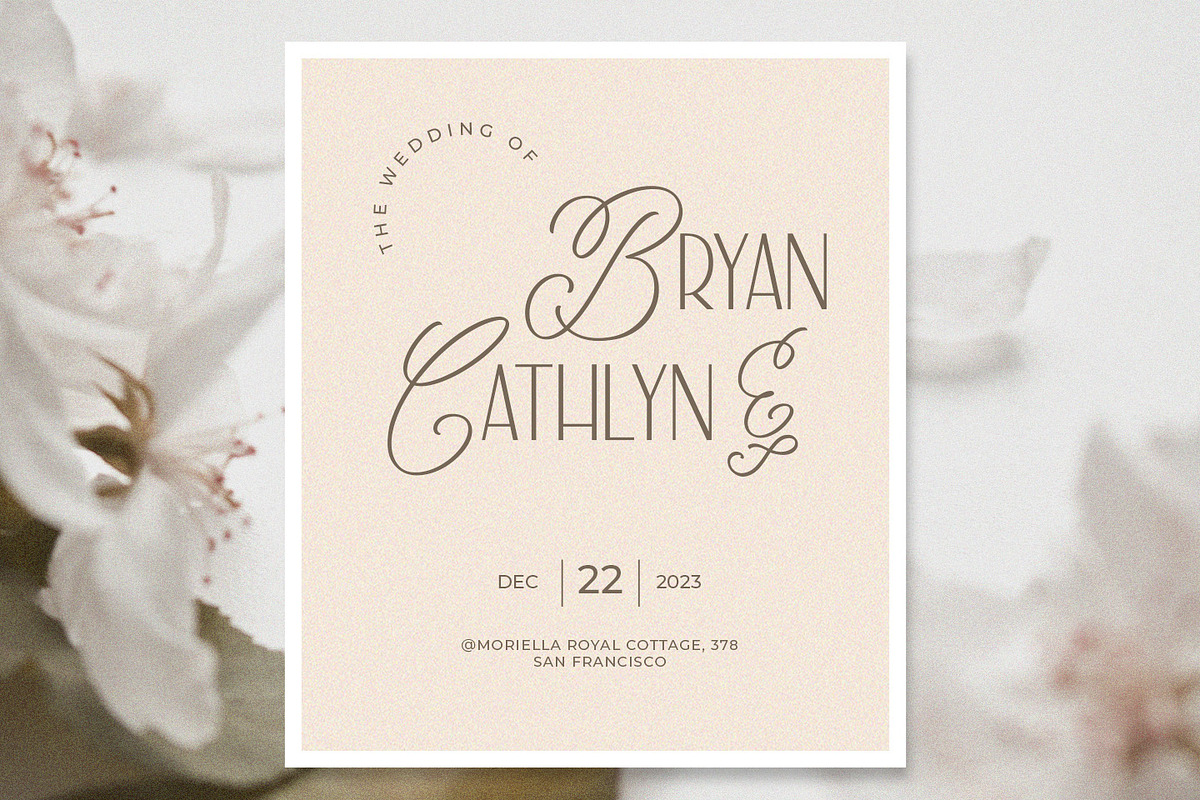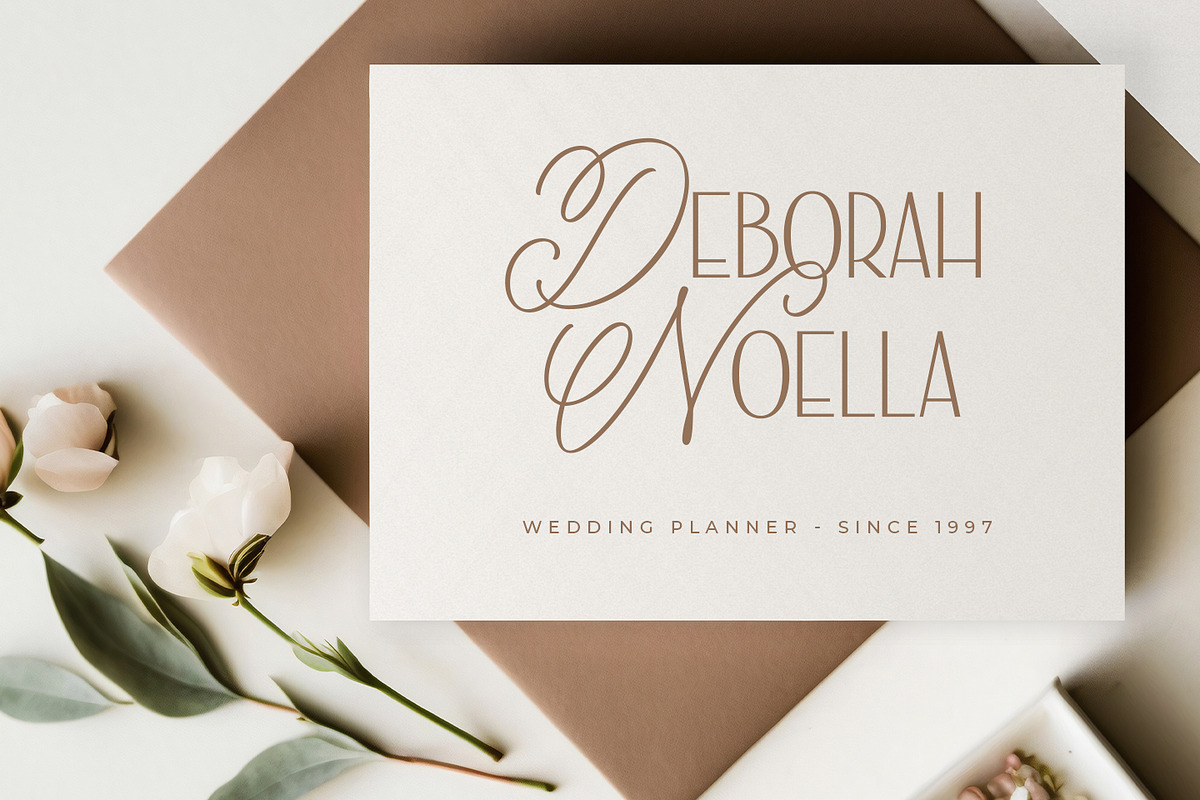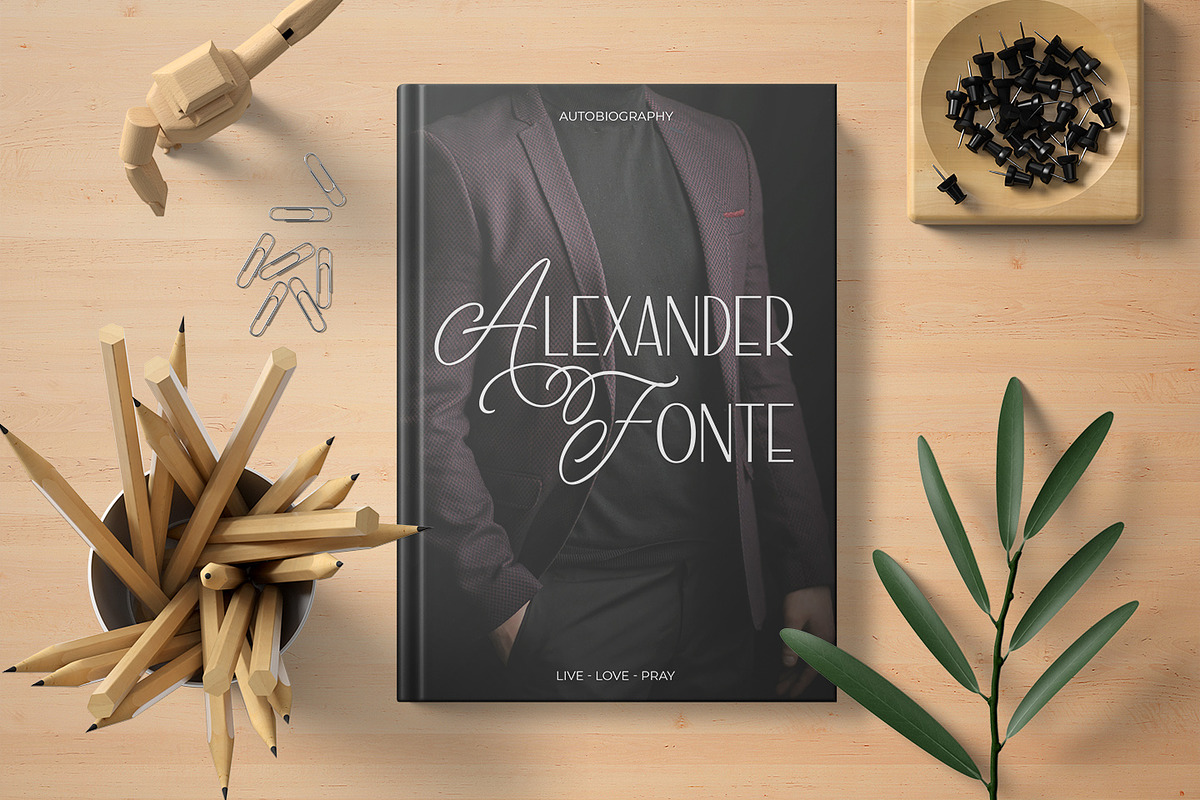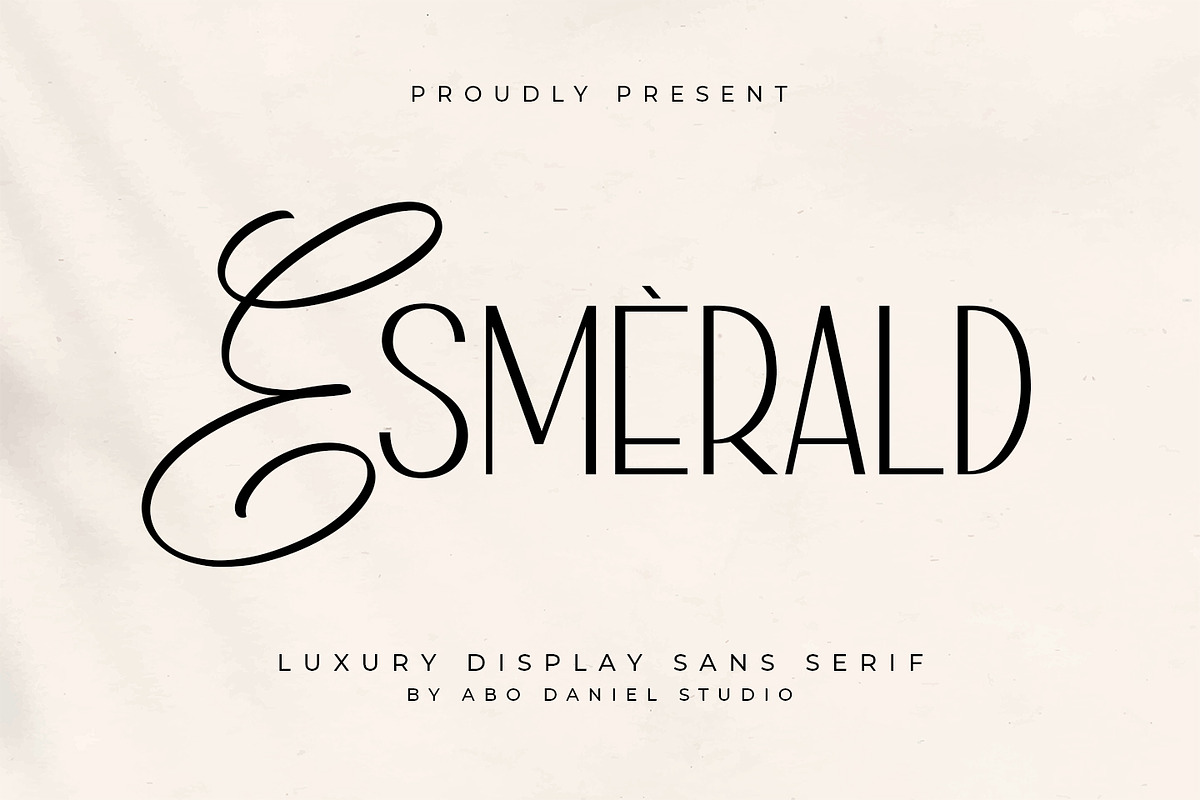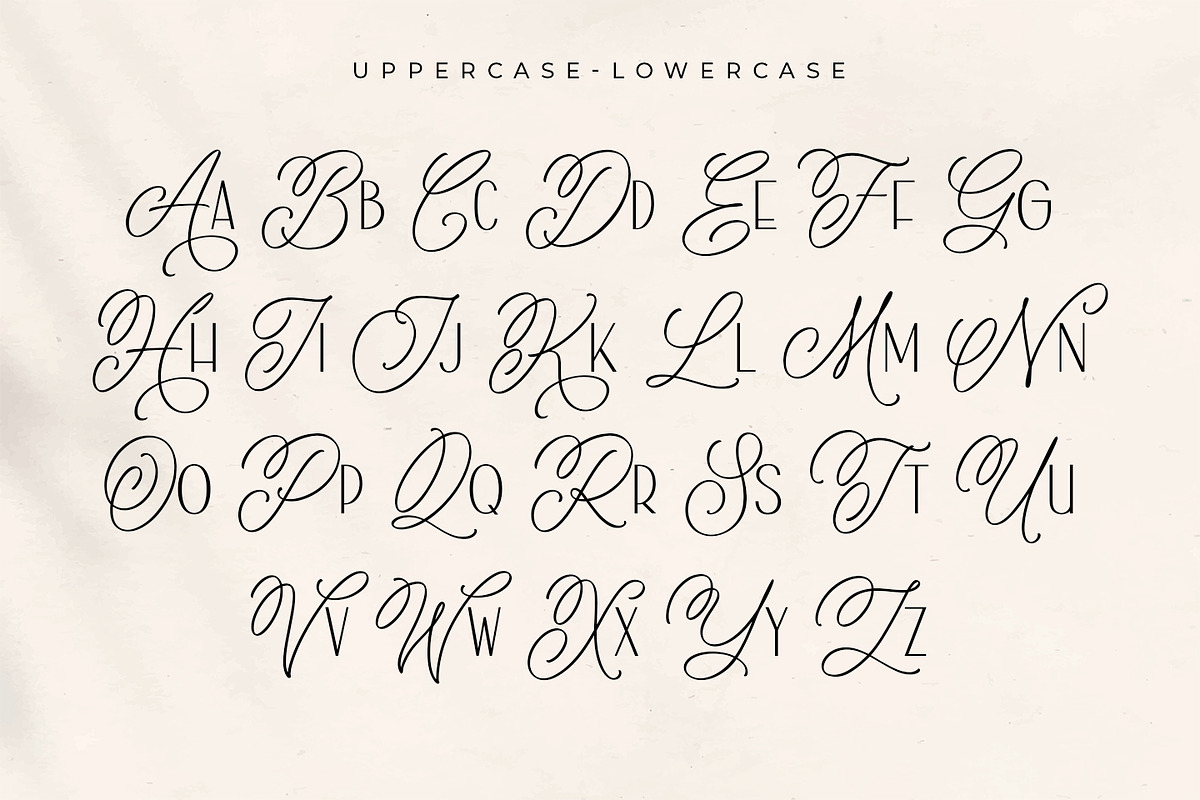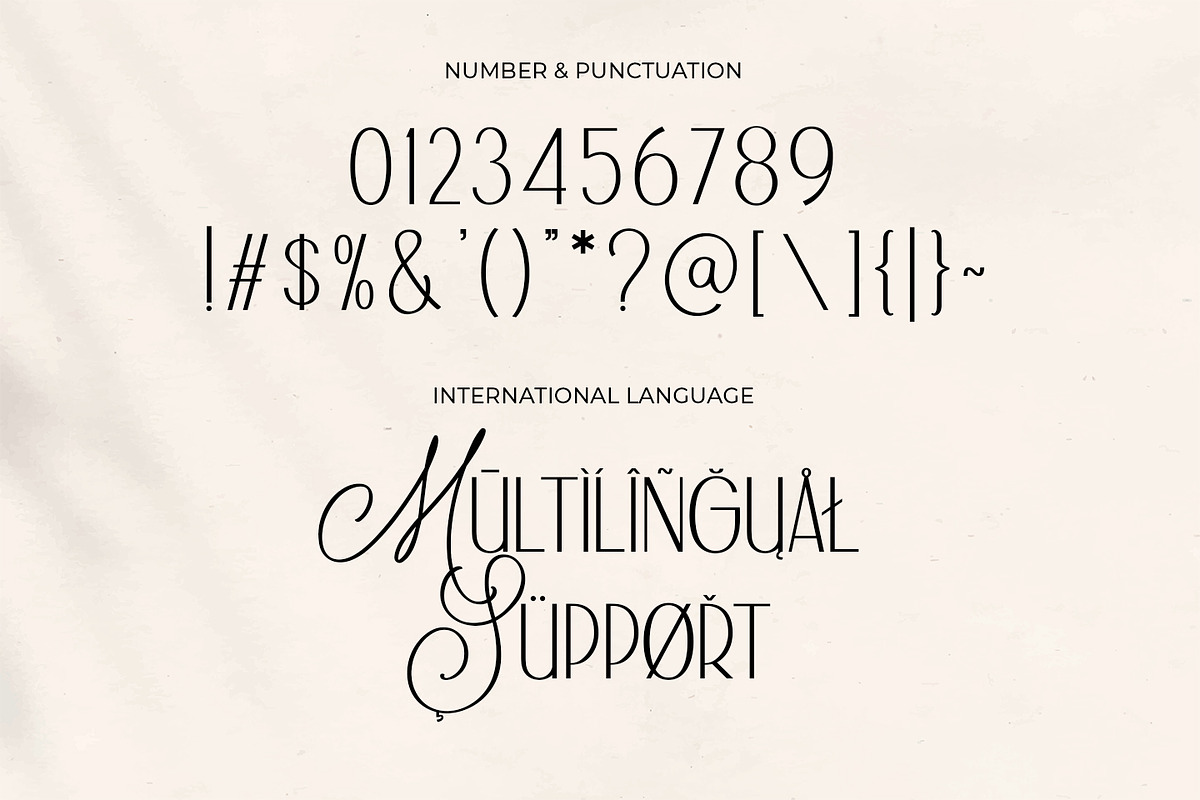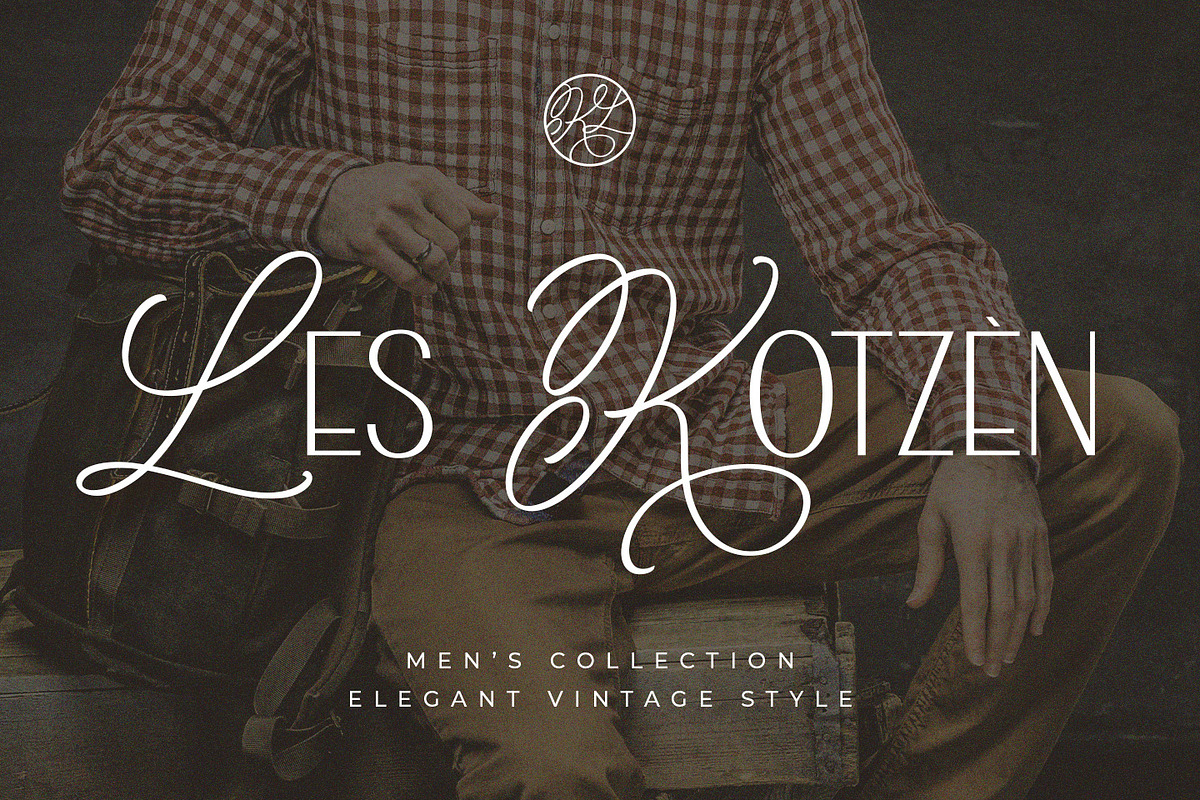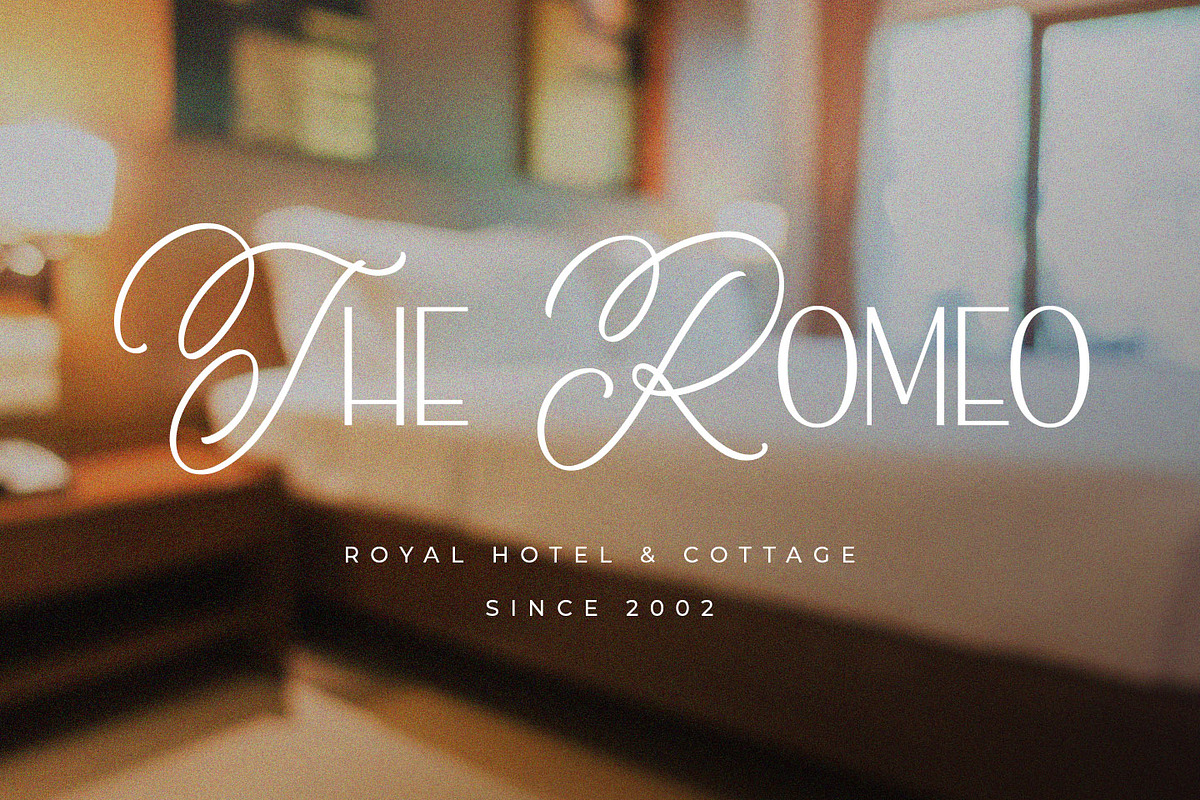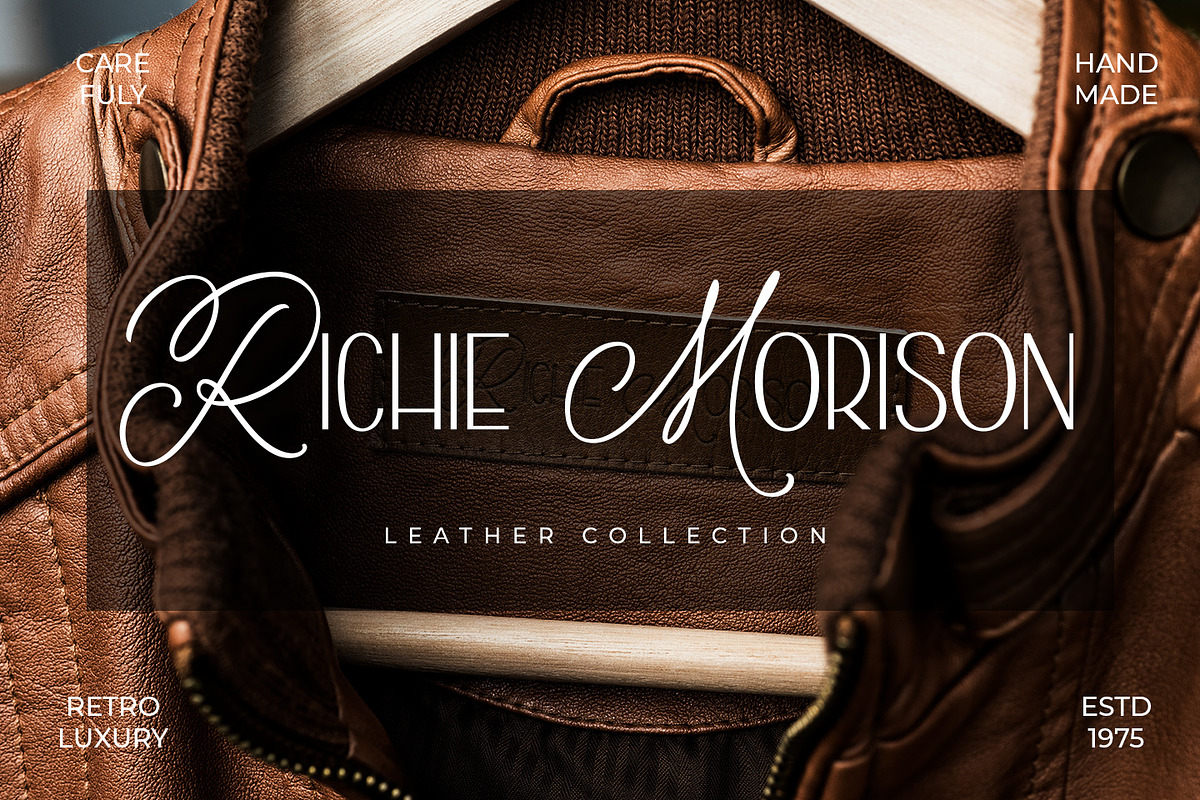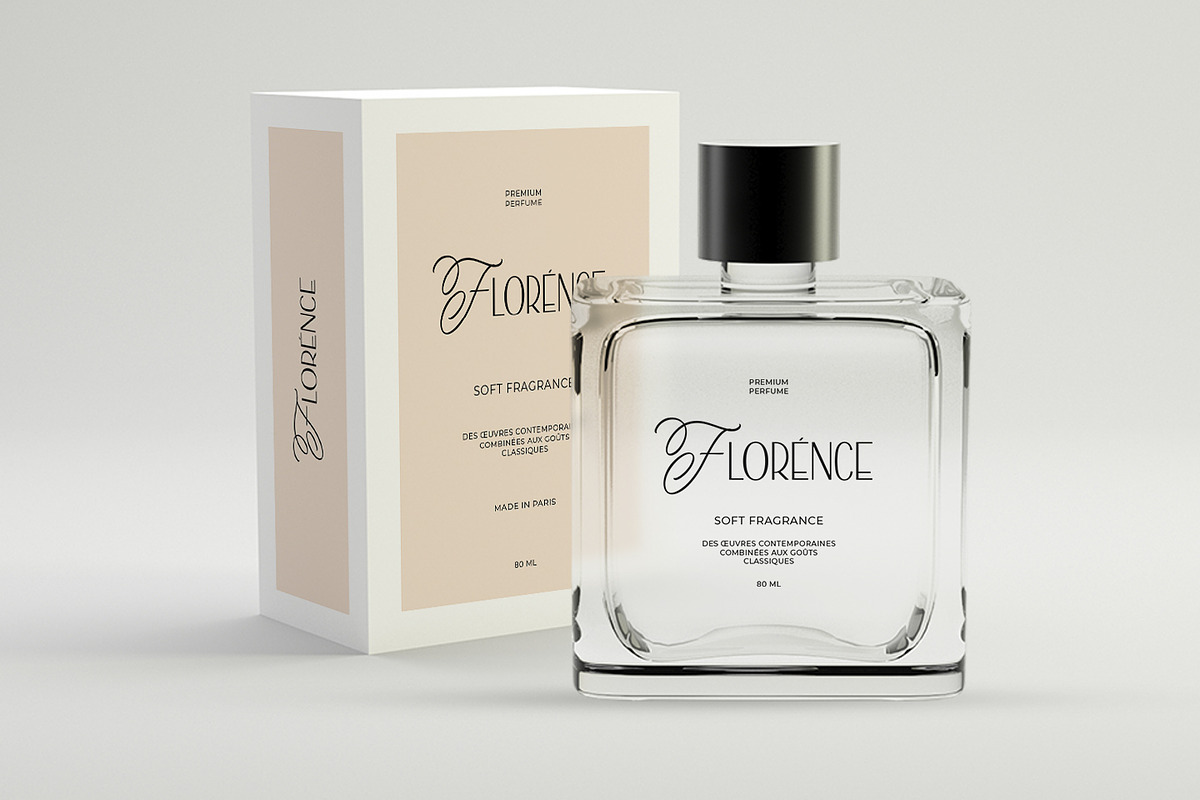
Esmerald
introducing
ESMERALD
-luxury display sans serif-
ESMERALD is unique typeface which is made from combination of sans serif and calligraphy. It is great for branding, packaging, quotes, logos, t-shirt designs, tote bag designs, book, cards, banners, social media, and more.
- Numeral